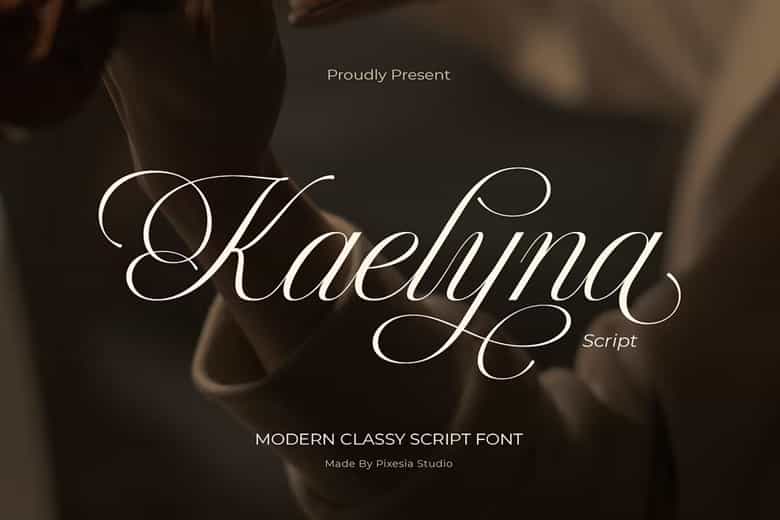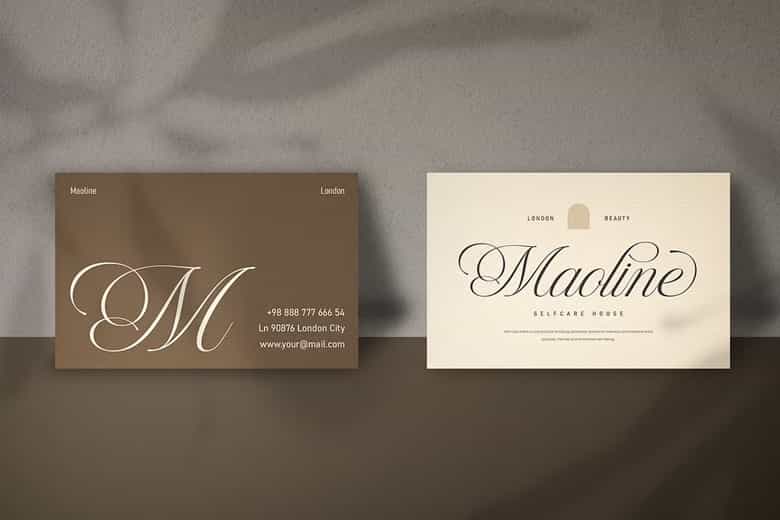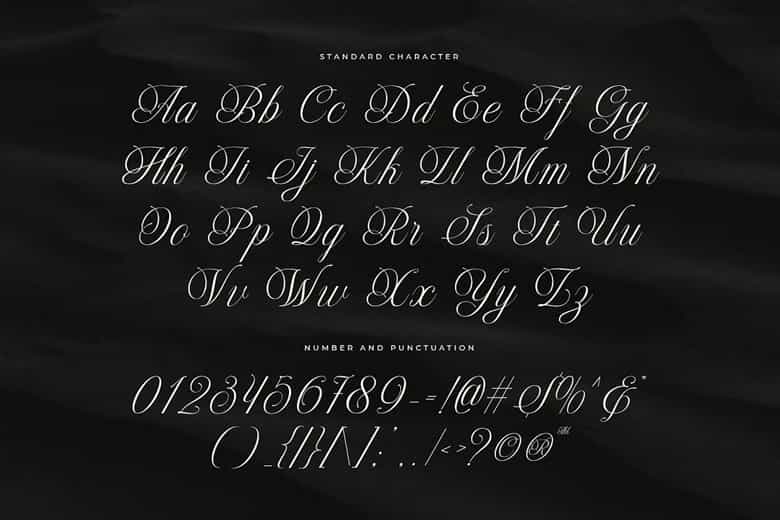
Kaelyna is the latest type of script font that is elegant and best suited for calligraphy. Thanks to its calligraphic, cursive form this script looks minimalist, luxurious and classy in any graphic design project. The best use of Kaelyna Script would be as branding, logotype, for wedding invitation cards, romantic quotes, labels such as wine or food, social media posts, advertisements, product packaging, clothing, label, formal stationaries and any project of high end and luxury feel.